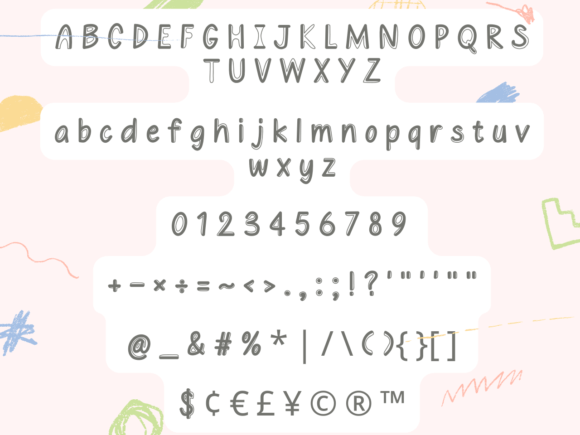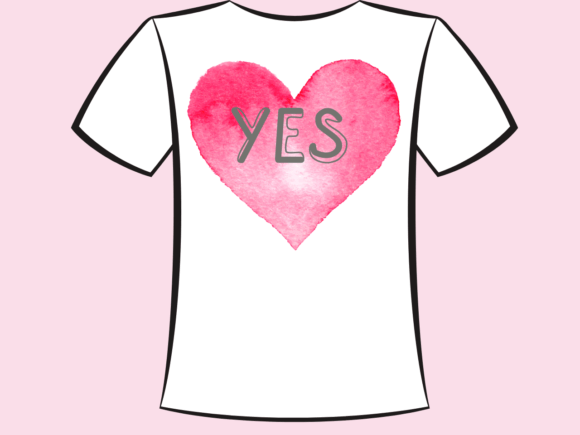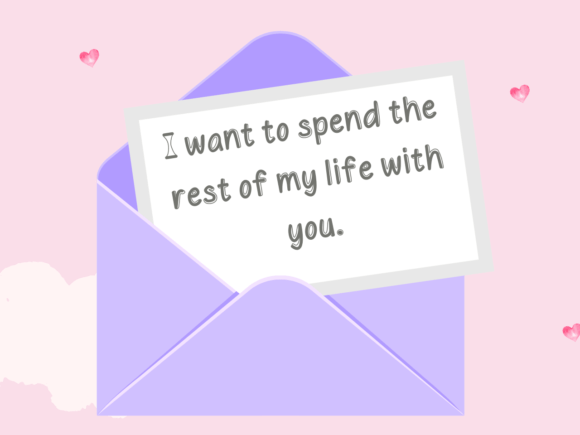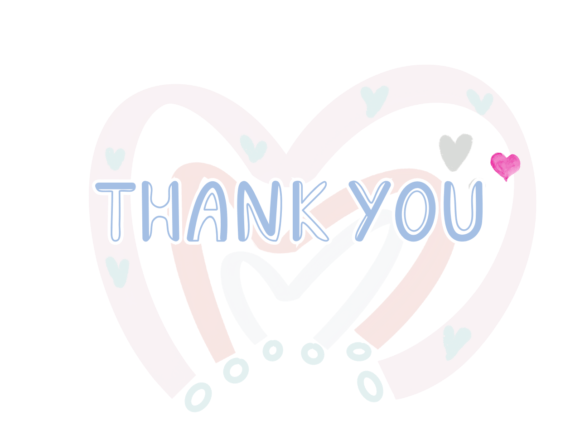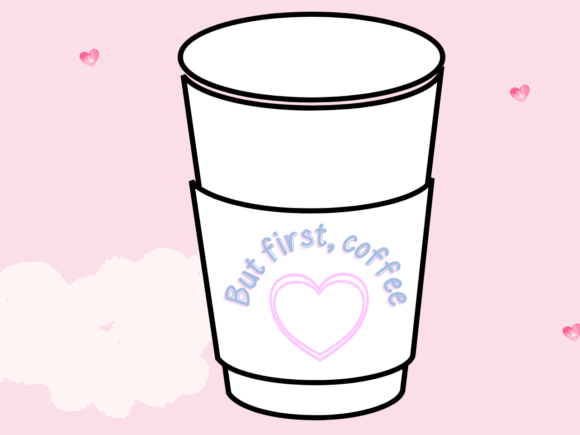
Unlocking the Magic of Handwritten Fonts: Introducing Alexander a Font
Have you ever found yourself scribbling down ideas in a notebook, only to be struck by the perfect combination of words and design? That’s the magic of creativity, and it’s exactly what Alexander a Font is designed to capture.
Alexander a Font is a delicate, elegant, and flowing handwritten font that brings a touch of sophistication to any design. Its beautiful and well-balanced characters make it the perfect addition to a wide range of creative projects, from elegant invitations to inspiring quotes.
For designers, Alexander a Font is a valuable tool that can elevate their work from ordinary to extraordinary. Its versatility and unique style make it an ideal choice for those looking to add a personal touch to their designs, and with its ease of use, it’s a font that’s sure to become a favorite among creatives everywhere.
Alexander a Font Key Features
- Unique Characteristics: A modern sans-serif font with a unique blend of geometric and humanist elements, offering a wide range of weights and styles.
Designer Review: Alexander a Font
Overall, I’d say Alexander a Font is a decent, no-frills choice for your design needs. It’s got a certain charm to it, but it’s not without its limitations.
- Unique aesthetic: Alexander a Font has a distinct, vintage vibe that’s perfect for adding some character to your designs.
- Highly legible: The font is easy to read, even at smaller sizes, making it a great choice for body text or captions.
- Wide character set: Alexander a Font includes a wide range of characters, including Cyrillic and Greek scripts.
- Limited font weight options: While the font has a nice range of styles, there aren’t many weight options to choose from, which can limit its versatility.
- No italics: The font doesn’t include italics, which can be a drawback for designers who like to add emphasis to certain text.
- Not ideal for headlines: Due to its relatively small x-height, Alexander a Font isn’t the best choice for large headlines or titles.
Overall, I’d recommend Alexander a Font for designers who are looking for a simple, easy-to-read font for body text or captions. Just be aware of its limitations, and consider using it in combination with other fonts to add some extra flair to your designs.
Practical Application Guide for “Alexander a Font”
Tips for Getting the Most Out of “Alexander a Font”
Use “Alexander a Font” to add a touch of elegance and sophistication to your designs.
Experiment with different font sizes, colors, and combinations to achieve the desired look.
Consider pairing “Alexander a Font” with other elegant fonts for a unique and stylish design.
“Alexander a Font” is ideal for:
Editorial and publishing projects
Alternatives to “Alexander a Font” for Designers
Montserrat is a popular sans-serif font designed by Julieta Ulanovsky. It is suitable for modern and minimalist designs, particularly for digital interfaces, logos, and signage. Montserrat is more geometric and condensed compared to Alexander a Font, making it ideal for small-scale designs.
Open Sans is a clean and modern sans-serif font designed by Steve Matteson. It is suitable for a wide range of designs, from digital interfaces to print materials. Open Sans is more legible and versatile compared to Alexander a Font, making it a popular choice for designers.
Lato is a modern sans-serif font designed by Łukasz Dziedzic. It is suitable for designs that require a clean and elegant look, particularly for corporate materials, websites, and apps. Lato is more rounded and friendly compared to Alexander a Font, making it ideal for designs that require a softer touch.
Inter is a modern sans-serif font designed by Rasmus Andersson. It is suitable for designs that require a clean and professional look, particularly for digital interfaces, logos, and corporate materials. Inter is more versatile and adaptable compared to Alexander a Font, making it a popular choice for designers.
Can I use Alexander for logos or branding?
While Alexander is a versatile font, it’s not recommended for use as a primary logo or branding element. Alexander is designed for body text and headings, and its simplicity may not be suitable for creating a strong brand identity. For logos and branding, you may want to consider a custom-designed font or a more distinctive typeface.